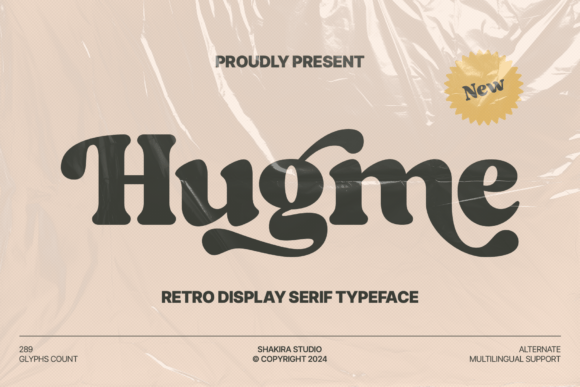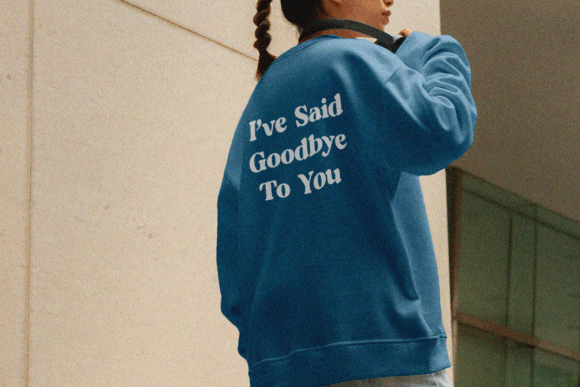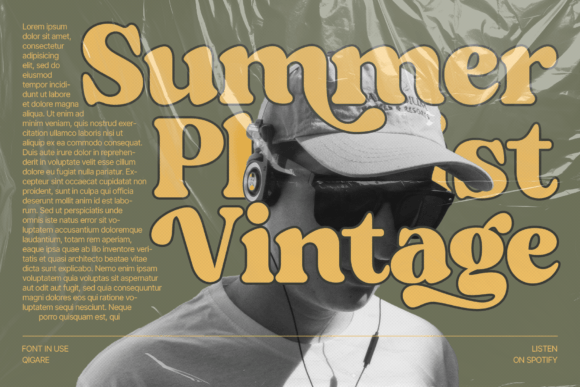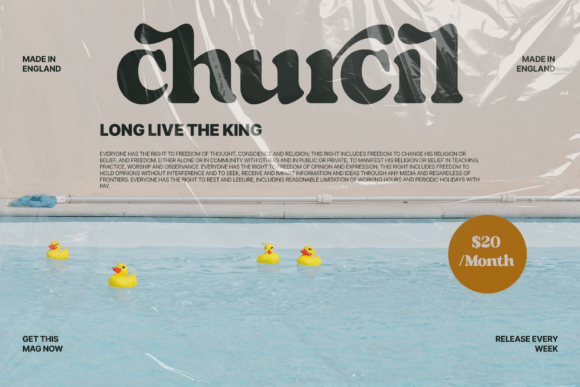
Hugme Font: Bold Retro Serif for Eye-Catching Display Typography
About the Hugme Font
Elevate your designs with Hugme Font, a font that combines sophistication with readability. Hugme isn’t just your average serif font; it’s a nostalgic journey back to the retro era with a modern twist. With its bold characters and unique alternates, Hugme is the perfect choice for designers looking to infuse their projects with vintage charm and contemporary flair.
Crafted for creatives seeking to make a bold statement, Hugme combines thick strokes and distinctive alternates to create eye-catching typography that stands out in any design.
Hugme’s bold personality makes it ideal for headlines, short impactful statements, logos, and posters where its retro-modern aesthetic can shine. It’s also well-suited for packaging design, particularly for products aiming for a vintage or handcrafted feel. However, its strong stroke contrast and unique letterforms make it less suitable for body text or UI elements requiring high readability. Extended use could lead to fatigue.
Pairing Hugme effectively requires considering its strong presence. A clean sans-serif like Montserrat or a geometric sans-serif such as Futura would provide a sharp contrast and improved readability in supporting text. For a softer approach, a delicate script font like Great Vibes could add a touch of vintage elegance. Avoid pairing it with other overly decorative or bold fonts to prevent visual clutter.
Hugme projects a confident, slightly nostalgic, and ultimately bold personality. It’s a versatile choice for brands wanting to convey a sense of heritage with a contemporary edge – think artisanal goods, vintage clothing lines, or music projects with a retro vibe.